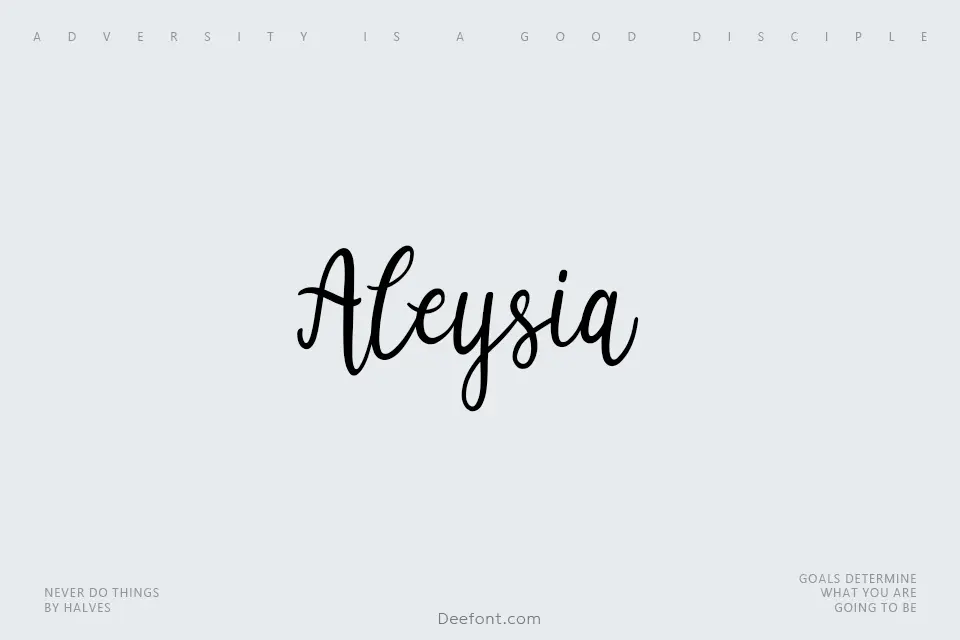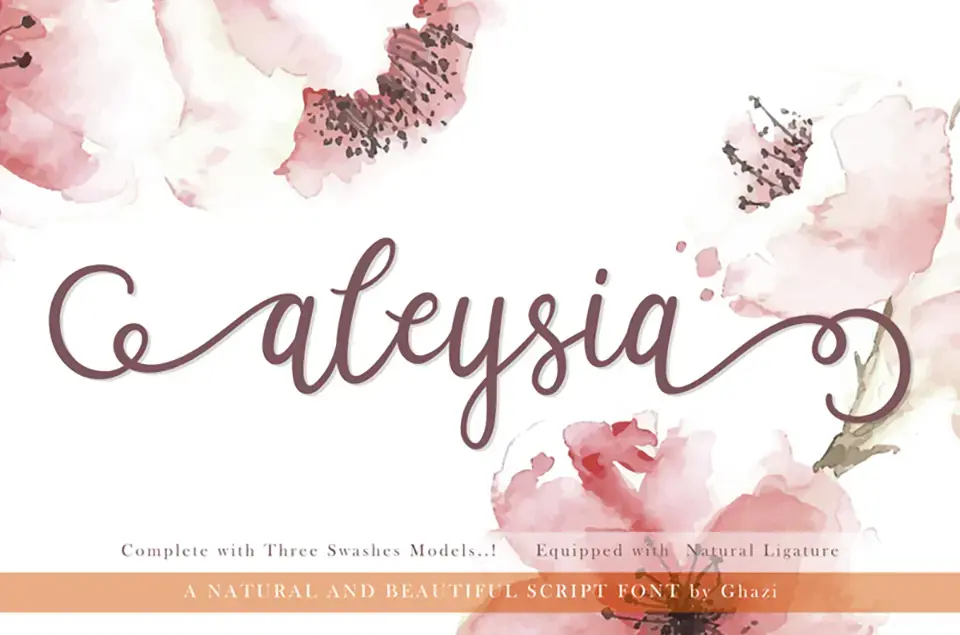
Aleysia Font
Aleysia Font is an elegant signature script that combines natural writing style with flowing curves to create a personal, classy touch to any design project. This handwritten typeface excels in branding, photography, invitations, quotes, watermarks, advertisements, product designs, and labels. The smooth, connected letterforms deliver authentic pen-stroke authenticity while maintaining legibility across various applications from large display sizes to refined details.